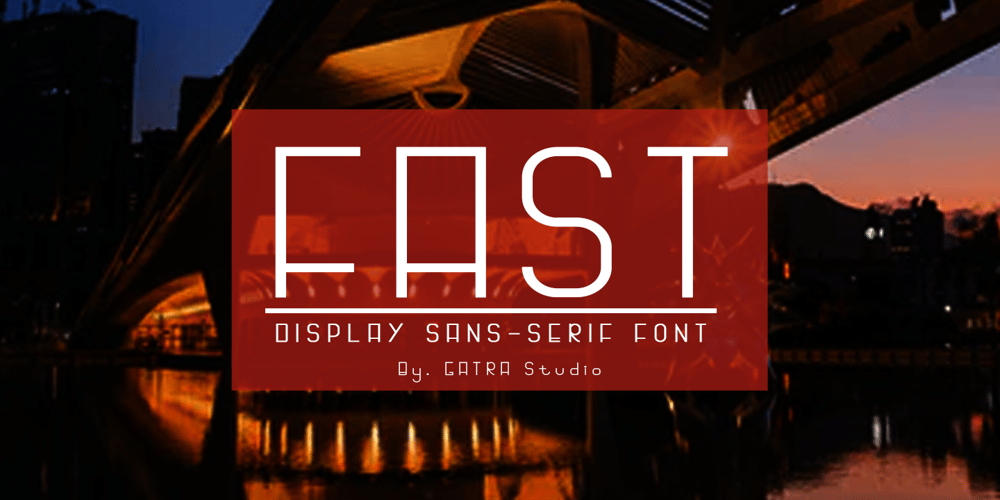
Fast
Fast font
Fast Font Family was designed by Wahyu Edhi Widodo and published by Gatra Std. Fast contains 1 styles and family package options. Introducing a cute handwriting “FAST” Display Sans-Serif Font!If you are needing a touch of casual modern San-Serif for your designs, this font was created for you!What’s Included: Uppercase and Lowercase Number and Punctuation Support Language This font works best in a program that supports OpenType features such as Adobe Indesign, Adobe Illustrator CC and CS, or Adobe Photoshop CC and CS also CorelDrawMore Questions? Here are some (potential) answers! Do not to resell this font in any way. Multilingual Support is included for Western European Languages